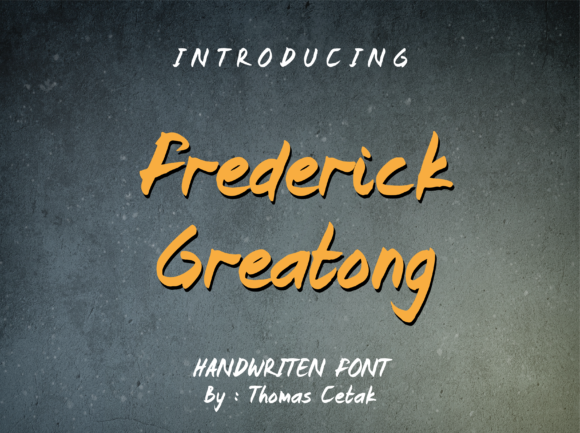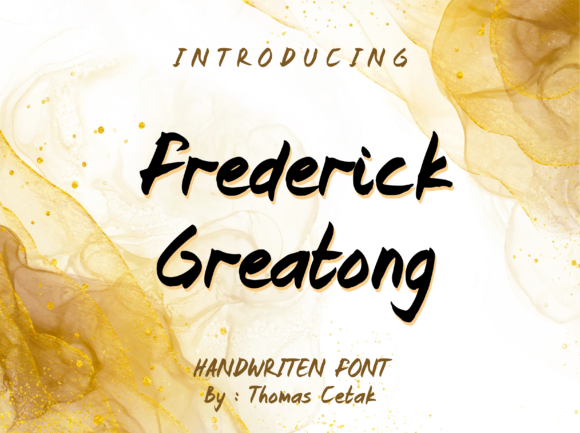
Introduction to Frederick Greatong Font Font
Fonts play a crucial role in design, and the Frederick Greatong Font font is a typeface that brings both character and versatility to any project. Whether you’re working on a branding project, a website, or a print design, the Frederick Greatong Font font offers a unique style that can elevate your work.
Frederick Greatong is a simple yet emphatic handwritten font.
Highly recommended for covers on photography themes, comic books, childrenβs story titles and the like Adds traction to your cover brand.
Key Features of Frederick Greatong Font Font
Why Choose Frederick Greatong Font Font?
The Frederick Greatong Font font is more than just a typeface β it’s a design tool that helps you communicate your message with style and clarity. Its unique character set and versatile design make it suitable for a wide range of applications, from elegant invitations to bold headlines.
With its carefully crafted letterforms and balanced proportions, the Frederick Greatong Font font ensures readability and visual appeal across all mediums.
What makes Frederick Greatong Font font special?
The Frederick Greatong Font font stands out with its unique design, exceptional readability, and versatility across various design applications.